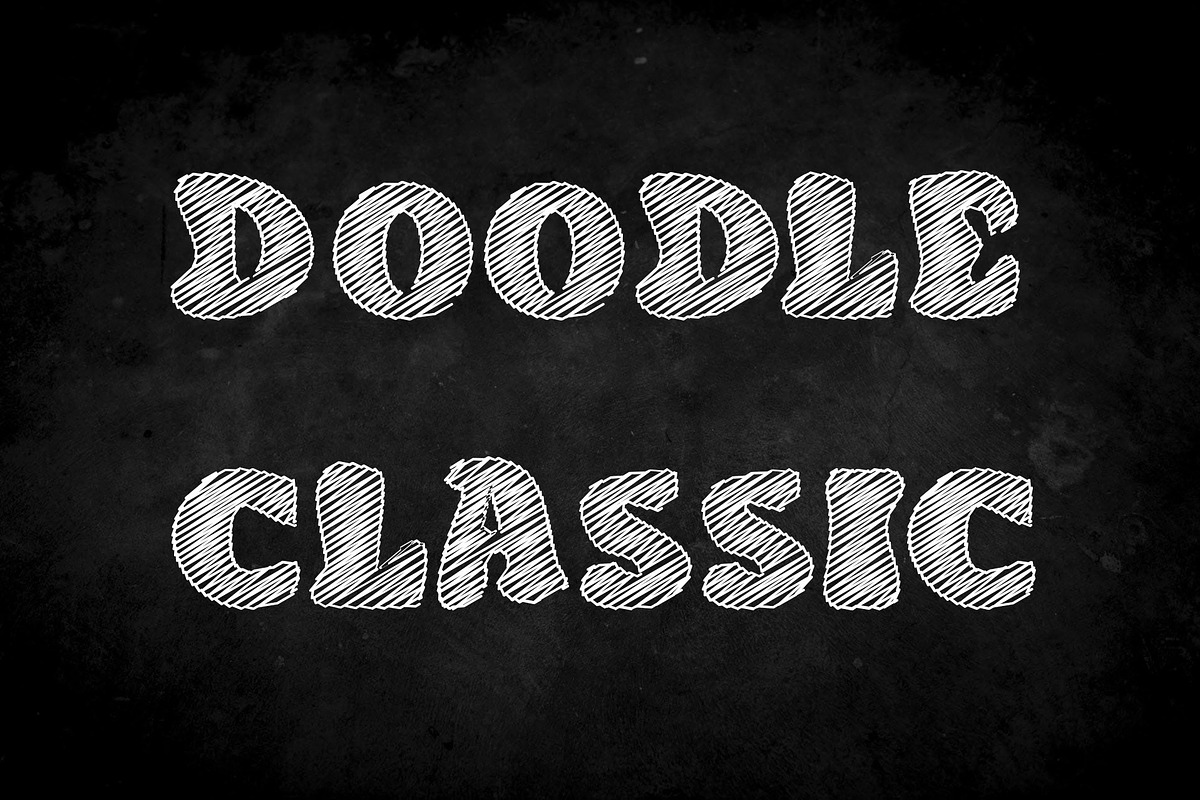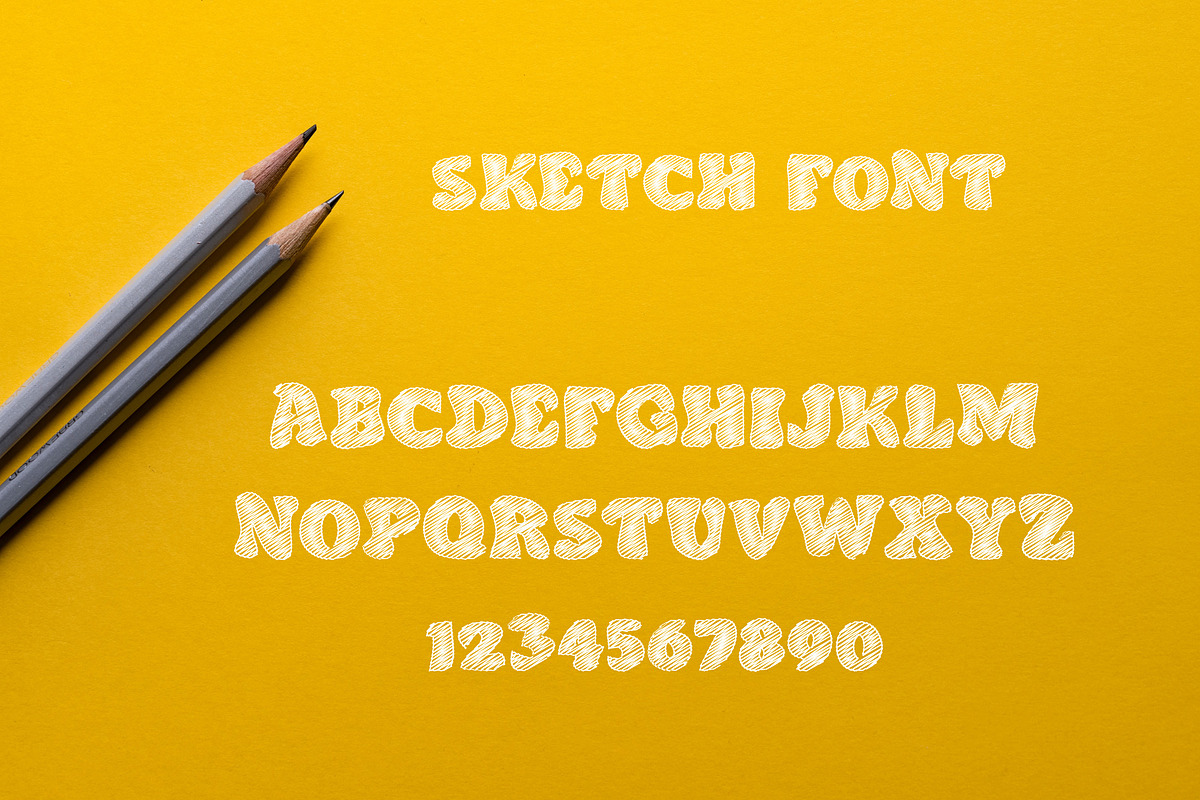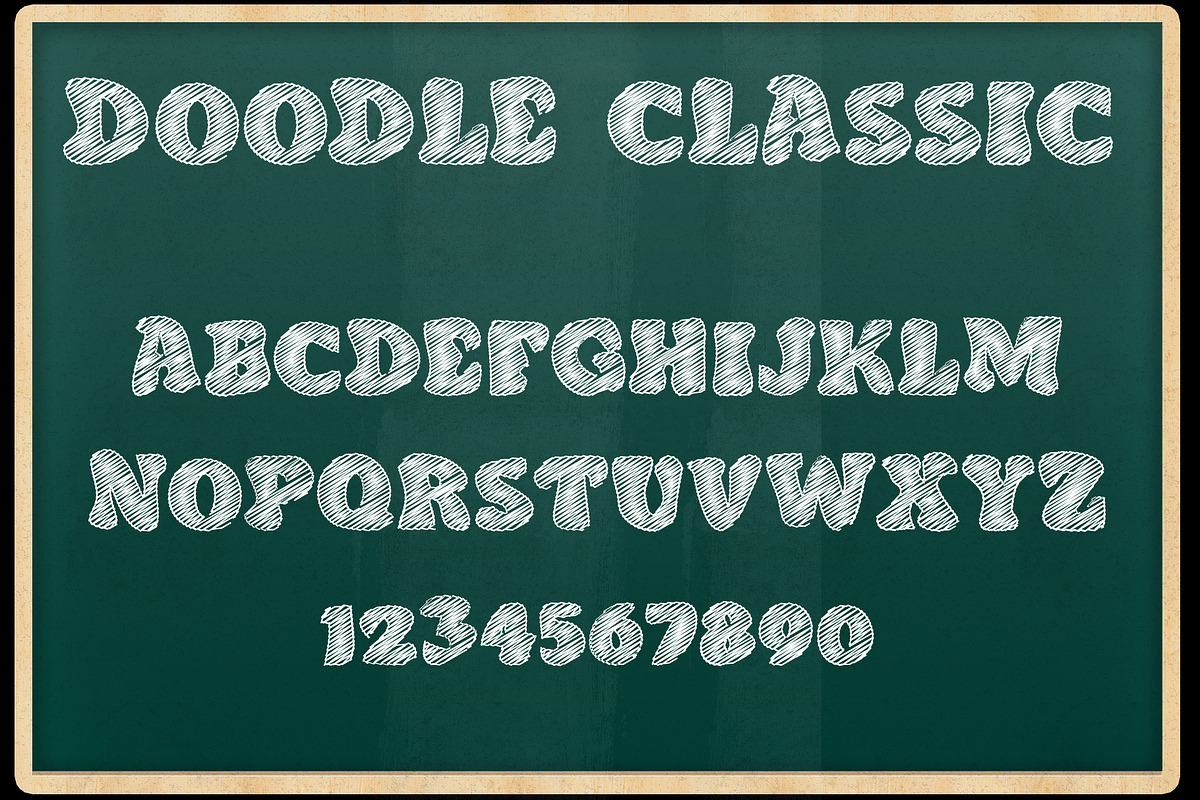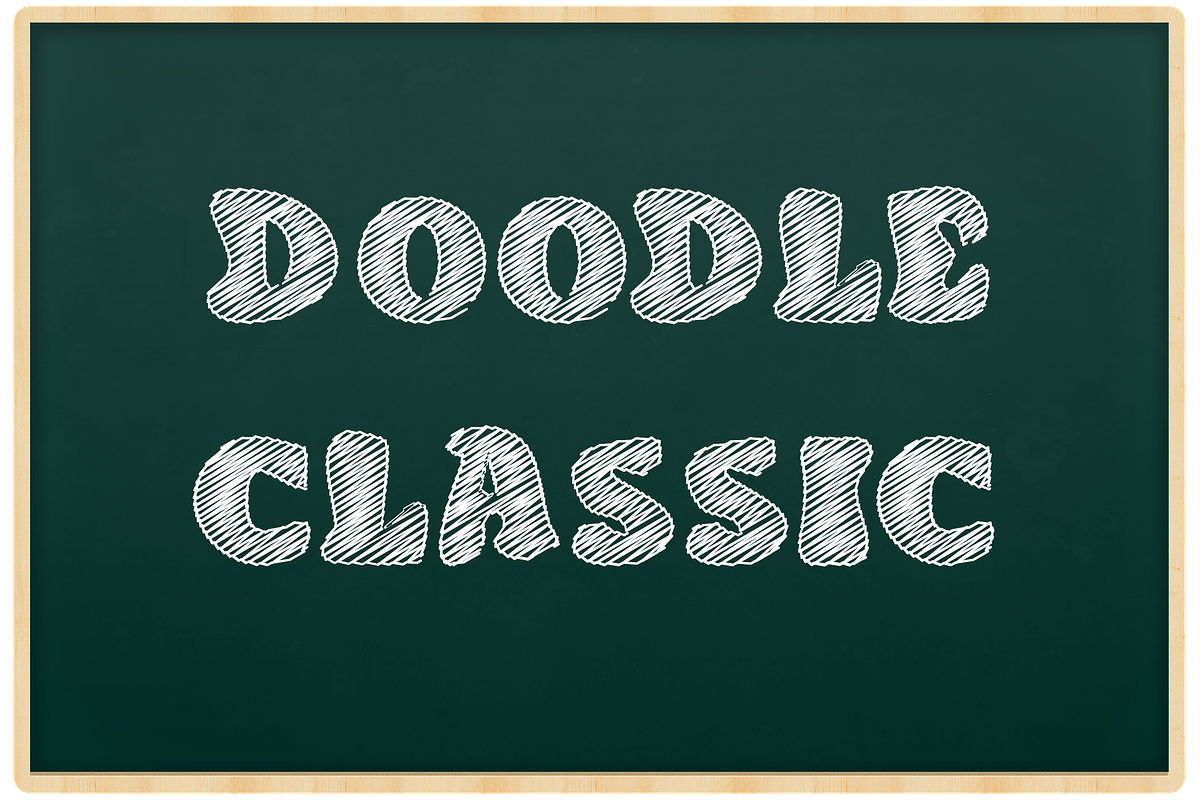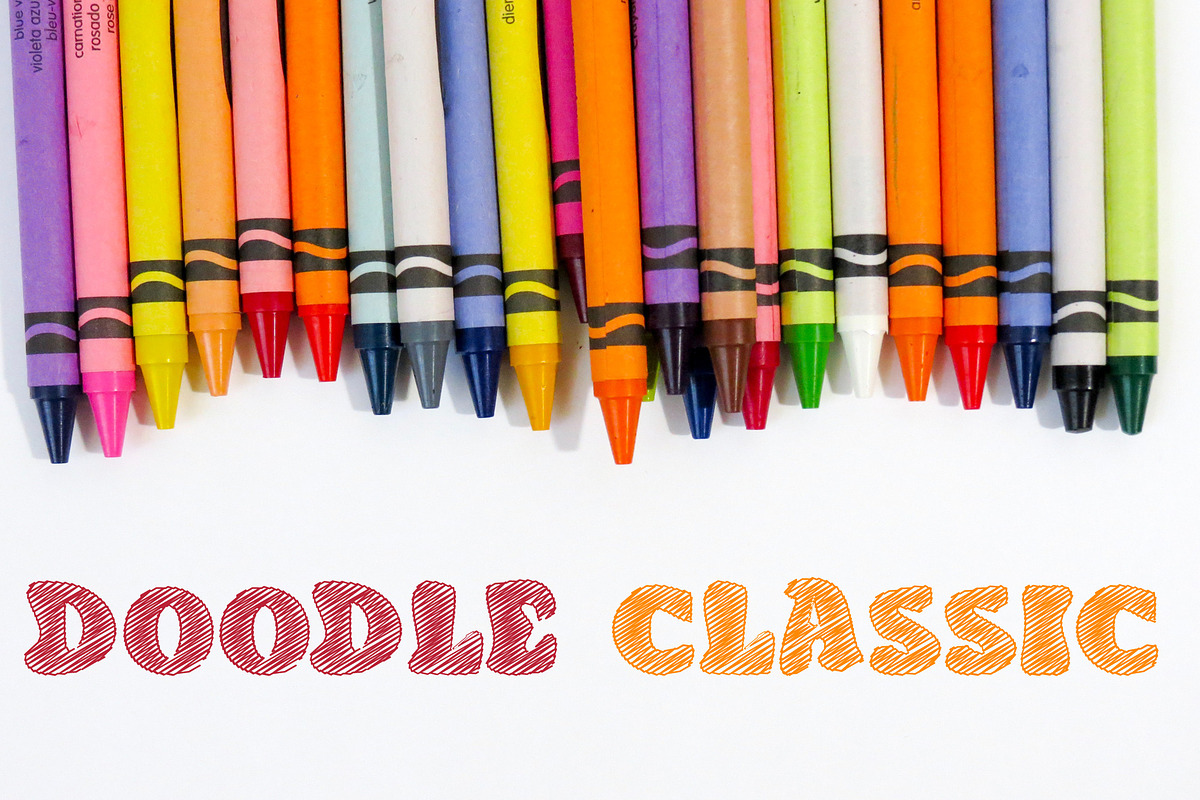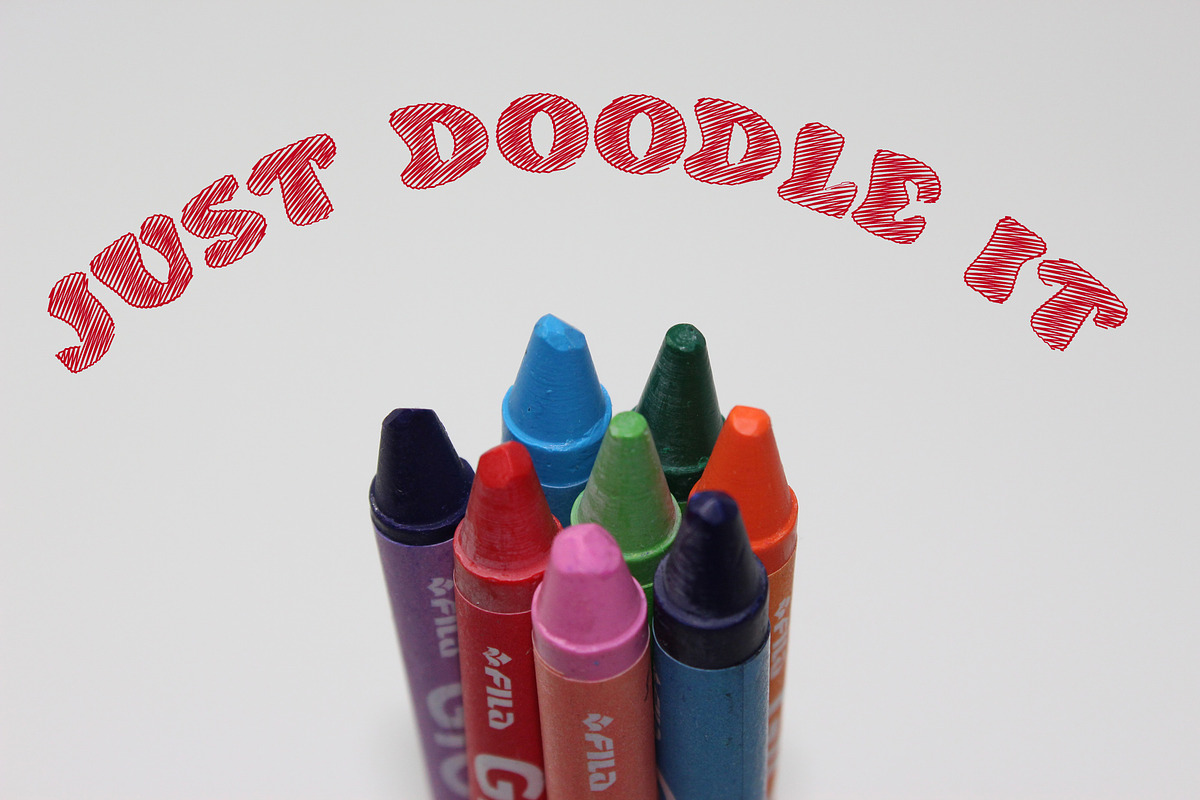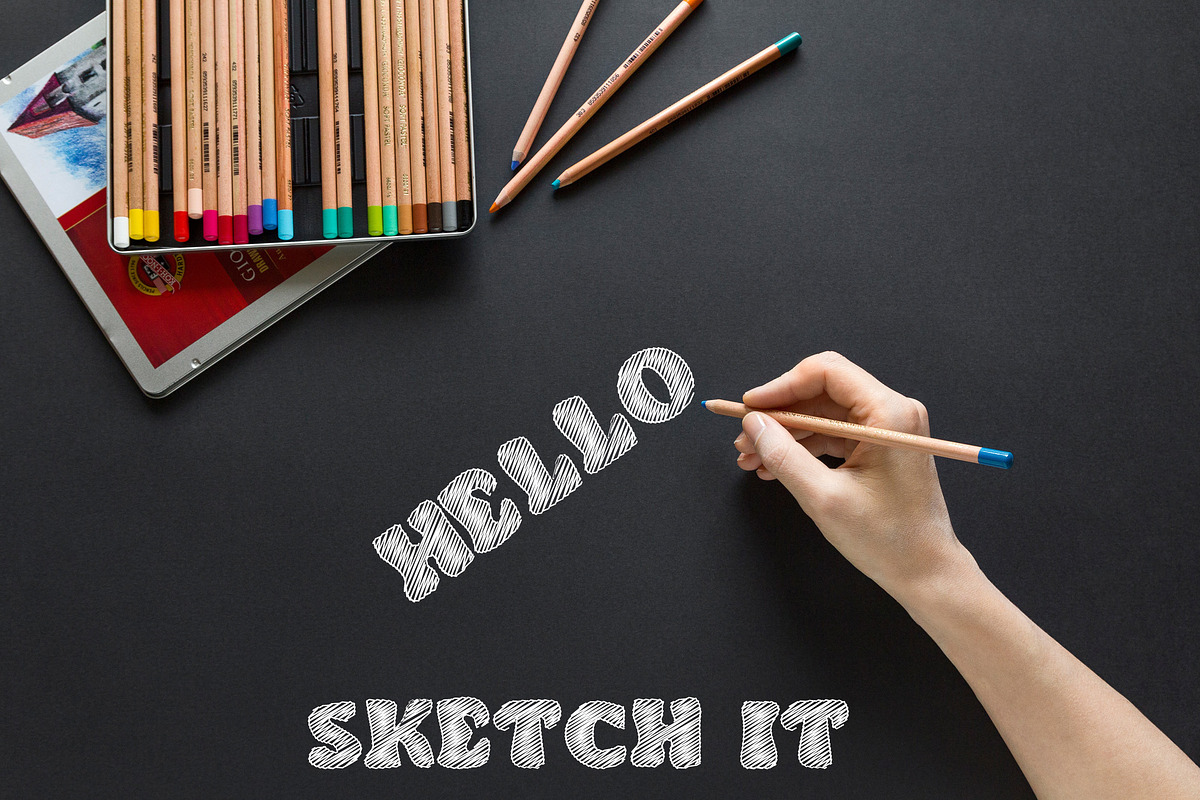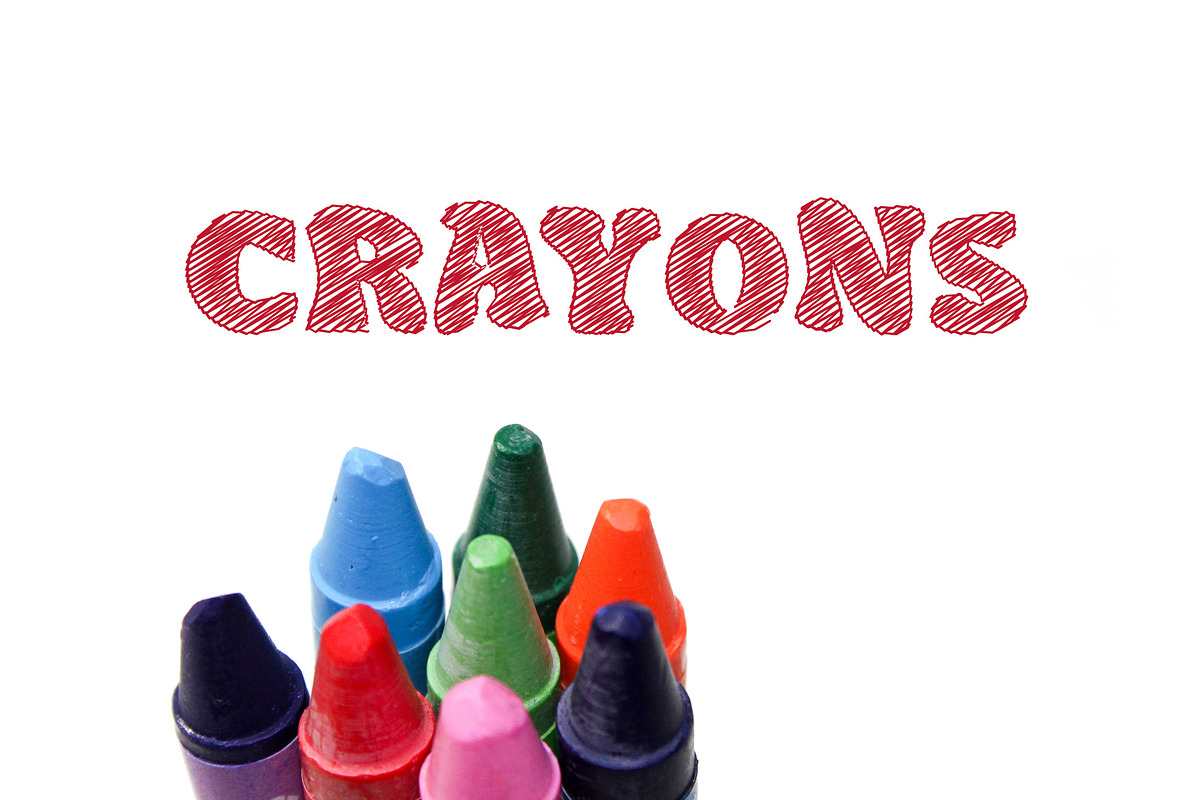
Doodle Classic - Sketch Font
Doodle Classic - Sketch Display Font
Doodle Classic is hand drawn sketch font.
Great for posters, logos, packaging, invitations, website titles, prototypes, wireframing T-shirts and more. Back to school.
- It contains uppercase, numbers, digits and symbols.